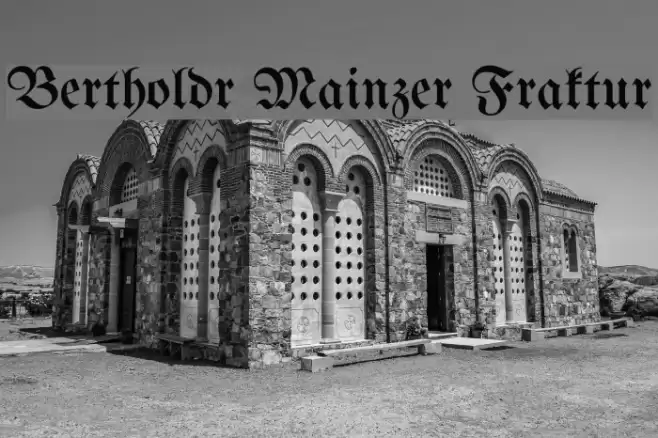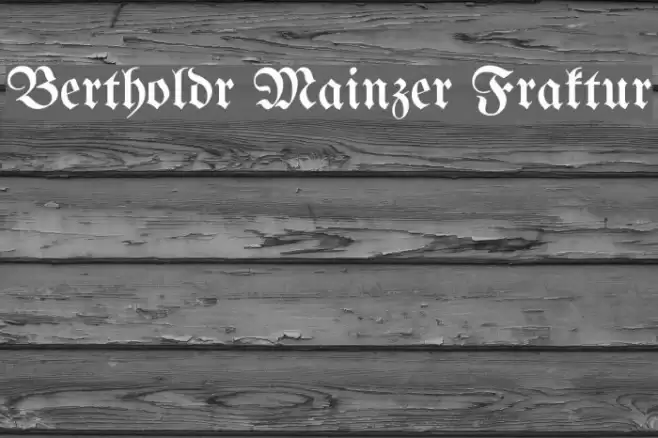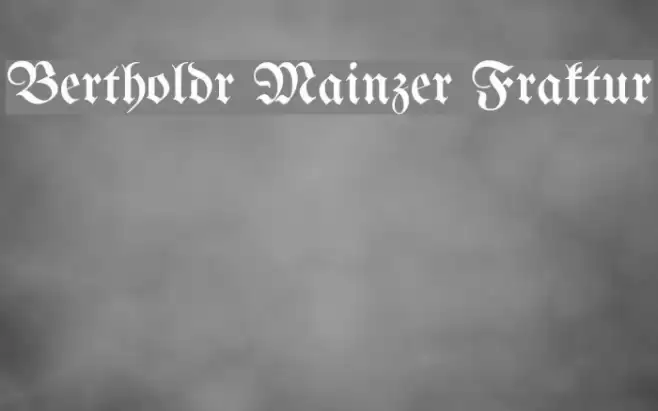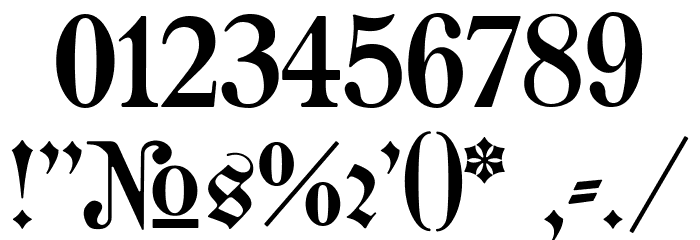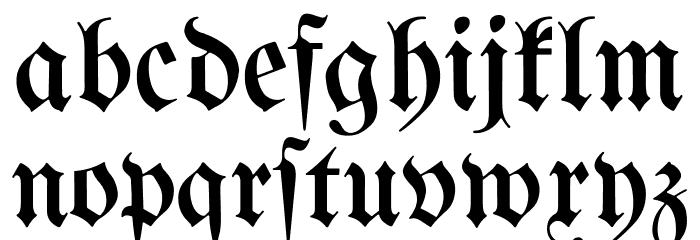
Bertholdr Mainzer Fraktur Font
Bertholdr Mainzer Fraktur Description
This font is a classic example of the Blackletter style, characterized by its ornate and intricate design. The letters feature sharp, angular lines with dramatic flourishes, evoking a sense of historical elegance and tradition. The uppercase letters are particularly elaborate, with each character displaying unique embellishments that enhance their visual appeal. The lowercase letters maintain the same intricate detailing, ensuring consistency throughout the typeface. The numerals are bold and distinct, matching the overall aesthetic of the font. Special characters are equally ornate, adding to the font's versatility for various design applications.
An ornate Blackletter font with intricate, angular designs and historical elegance from Uncategorized fonts.
- Proposed Projects: Ideal for projects requiring a historical or traditional touch, such as certificates, invitations, book covers, and branding for luxury products.
- Overall Style: Vintage
- Use Case: Headlines, Logos, Decorative purposes